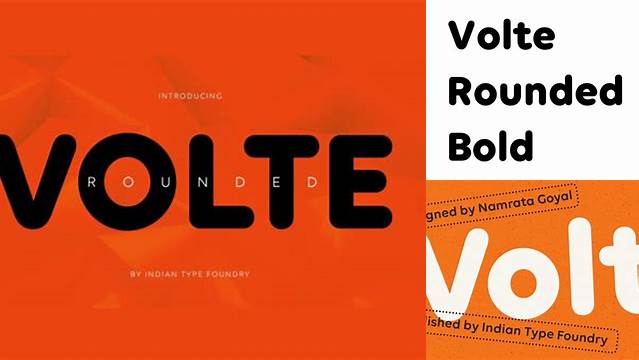
Free VoLTE Rounded Font Downloads
Hey guys, welcome back! Today, we're diving deep into the awesome world of the VoLTE rounded font free download. If you're looking to give your projects a fresh, modern, and super clean look, you've come to the right place. We'll explore why this font is so popular, where you can snag it for free, and how to use it to make your designs pop! So, buckle up, and let's get started on finding that perfect font.
Unpacking the Appeal of VoLTE Rounded Fonts
So, what's the big deal with VoLTE rounded fonts, anyway? You know, the ones that feel soft and friendly without being sloppy? It's all about that perfect blend of modern aesthetics and approachability. In the digital realm, where first impressions are everything, the typeface you choose can make or break your message. VoLTE rounded fonts strike a fantastic balance. They're contemporary, clean, and convey a sense of clarity and ease. Think about it: sharp, angular fonts can sometimes feel a bit aggressive or too formal. On the flip side, overly rounded fonts might come across as childish or unprofessional. This is where the magic of the VoLTE rounded style comes in. It offers a sophisticated yet inviting feel, making it incredibly versatile. Whether you're designing a website, crafting a social media graphic, or even putting together a presentation, these fonts lend a touch of polished charm. They're easy on the eyes, promoting readability, which is super crucial for keeping your audience engaged. Plus, that subtle rounding adds a unique character that can help your text stand out from the crowd without being distracting. It’s a subtle design element that packs a serious punch in terms of overall user experience and visual appeal. Many designers are flocking to this style because it feels fresh and current, aligning perfectly with current design trends that favor clean lines and soft edges.
Exploring Different Styles of VoLTE Rounded Typefaces
When we talk about VoLTE rounded fonts, it's not just a one-size-fits-all situation, guys. There's actually a whole spectrum of styles within this popular category. You've got your really subtle rounded edges, which maintain a strong sense of structure and professionalism while still offering that hint of softness. These are perfect for corporate branding or more serious editorial content where you want to appear credible but also approachable. Then, you'll find fonts with more pronounced, bubbly rounded terminals. These tend to be more playful and energetic, great for kid-focused brands, event invitations, or any project that aims for a cheerful and lighthearted vibe. Some VoLTE rounded fonts are monolinear, meaning the stroke width stays consistent throughout, giving them a very modern and minimalist feel. Others have varying stroke widths, offering a more classic, calligraphic influence but with that distinct rounded finish. The beauty here is the sheer diversity. You can find a VoLTE rounded font that perfectly matches the specific mood and message you want to convey. Some might be sans-serif, offering that clean, modern look, while others might incorporate serif elements, blending tradition with contemporary rounded aesthetics. Experimenting with these variations is key to unlocking the full potential of this font style and ensuring it fits your project's unique needs. Don't be afraid to try out a few different interpretations of the rounded concept to see which one resonates best with your design goals and target audience.
The Versatility of VoLTE Rounded Fonts in Design
One of the most compelling reasons to grab a VoLTE rounded font free download is just how darn versatile these typefaces are. Seriously, guys, they're like the chameleon of the font world! Whether you're designing a sleek, minimalist app interface, a vibrant poster for a music festival, or even just a simple blog post, VoLTE rounded fonts can adapt. Their clean lines and soft edges make them super readable on screens of all sizes, from tiny smartphone displays to large desktop monitors. This legibility is key for user experience – nobody wants to squint to read your content, right? For branding, they offer a friendly yet professional touch. Imagine a startup using a VoLTE rounded font for its logo and website; it instantly communicates approachability and modernity. It's a way to seem established and trustworthy without feeling stuffy or unapproachable. In marketing materials, like brochures or social media ads, these fonts grab attention in a pleasant way. They can make headlines inviting and body text easy to digest. Even in more formal settings, like reports or academic papers (if permitted!), a subtly rounded font can inject a bit of warmth and prevent the text from feeling too cold or sterile. Think about wedding invitations – the rounded style naturally lends itself to a feeling of celebration and warmth. The adaptability is truly its superpower. You can pair a bold, rounded display font for headings with a lighter weight of the same font for body text, creating a cohesive and visually appealing hierarchy. It’s a design tool that punches well above its weight in terms of application.
Enhancing Readability with Rounded VoLTE Fonts
Readability is king, especially in today's digital-first world, and VoLTE rounded fonts really shine in this department. You might wonder how a little bit of rounding can make such a big difference, but it's all about how our eyes perceive shapes. Sharp corners and hard angles can sometimes create visual 'noise' or optical illusions that make letters blend together, especially at smaller sizes or on lower-resolution screens. The soft, smooth curves of a VoLTE rounded font, however, eliminate these harsh points. This results in clearer letterforms that are easier for our brains to process quickly. Think of it like this: imagine reading a book with pages full of tiny, sharp, jagged letters versus reading one with slightly softer, more flowing letters. Which one would you prefer for a long reading session? Exactly! This enhanced clarity is particularly beneficial for web design and mobile app development, where users are often scanning content quickly or reading on the go. A readable font means less frustration for the user and a better overall experience. It helps ensure that your message, no matter how complex, gets across clearly and effectively. Designers often select rounded fonts not just for aesthetics but as a strategic choice to improve user engagement and reduce bounce rates on websites. When people can read your content effortlessly, they're more likely to stay, explore, and convert. So, choosing a VoLTE rounded font isn't just about looking good; it's a smart move to make your content more accessible and enjoyable for everyone.
####### How to Choose the Right VoLTE Rounded Font
Okay, so you're convinced that VoLTE rounded fonts are the bomb, but how do you pick the right one for your specific project? It's not just about grabbing the first pretty font you see, guys. You gotta consider a few key things. First off, think about the purpose of your design. Is it for a playful children's book, a serious business proposal, a trendy cafe's menu, or a minimalist tech startup's website? The vibe you're going for will heavily influence your choice. A super bubbly font might be perfect for a kid's party invitation but would look totally out of place on a financial report. Next, consider the personality of the font. Does it feel friendly, sophisticated, quirky, modern, or classic? Look at the details – the width of the strokes, the exact shape of the curves, the spacing between letters (kerning). These subtle characteristics contribute to the overall personality. Also, think about legibility at different sizes. Download a few options and test them out in your design software. Type out a sentence or two in various sizes to see how they hold up. A font that looks great large might become a bit mushy when shrunk down for a social media icon. Free VoLTE rounded font download choices can be overwhelming, so narrowing it down by these factors is crucial. Finally, check the license! Seriously, I can't stress this enough. Make sure the font you choose is licensed for your intended use, whether it's personal or commercial. Choosing the right font is like picking the perfect outfit for an occasion – it needs to fit the context and make a statement.
######## Implementing VoLTE Rounded Fonts in Web Design
Alright, let's talk about putting these awesome VoLTE rounded fonts to work in your web design projects, guys. This is where they really get to shine! When you're building a website, the font you choose is a massive part of the user experience. Using a VoLTE rounded font can instantly give your site a modern, clean, and approachable feel. Imagine a user landing on your page – the typography is often one of the first things they notice. A well-chosen rounded font can make them feel welcome and encourage them to stick around. For headings, consider using a bolder weight of a VoLTE rounded font. This creates a strong visual hierarchy and draws the eye to the most important information. For body text, opt for a lighter weight to ensure maximum readability. The smooth curves help prevent eye strain, which is super important for longer articles or pages with lots of text. When implementing these fonts, you'll typically use CSS. You can upload the font files (like .woff or .woff2 formats are best for web) to your server and then define them in your CSS stylesheet using @font-face
, etc. Free VoLTE rounded font download sources often provide guidelines on how to implement them on the web. Remember to test your chosen font across different browsers and devices to ensure consistency. A font that looks fantastic on your desktop might render slightly differently on a mobile phone, so cross-browser compatibility testing is essential. Don't forget about font pairing, either! You might pair a striking VoLTE rounded display font with a more neutral sans-serif for body text, or vice versa, to create contrast and visual interest. The goal is to create a seamless and enjoyable reading experience that reflects the overall aesthetic of your brand or project.
######### Tips for Pairing VoLTE Rounded Fonts with Other Typefaces